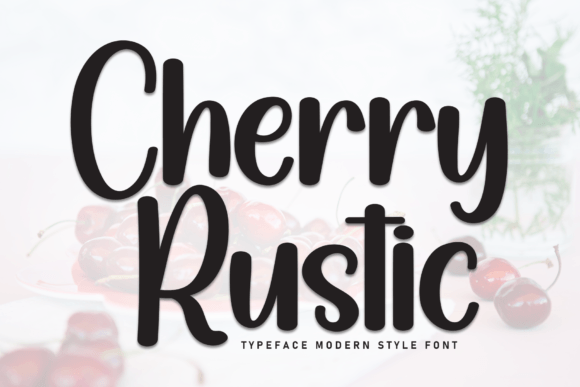
Discover the Delightful Charm of Cherry Rustic Font
I’ll never forget the time I was working on a wedding invitation project, and my client asked for a font that was “whimsical, yet elegant.” I scoured the internet, tried out countless fonts, but nothing seemed quite right. That was until I stumbled upon Cherry Rustic Font. Its sweet and friendly allure instantly won me over, and I knew I had found the perfect fit. In this article, I’ll share my experience with this beautiful handwritten font, its features, and how to make the most of it in your design projects.
A Personal Review of Cherry Rustic Font
- ✨ The playful and enjoyable personality of Cherry Rustic Font makes it perfect for wedding invitations, cards, and other design projects that need a touch of whimsy.
- ✅ The font’s handwritten charm is sure to capture the attention of your audience and leave a lasting impression.
- 💕 The font’s sweet and friendly allure makes it ideal for projects that require a warm and inviting tone.
While Cherry Rustic Font is a beautiful font, there are a few quirks to be aware of:
- 🤔 The font may not be suitable for body text due to its handwritten nature and potential lack of readability at smaller sizes.
- ⚠️ Some characters may have slightly inconsistent spacing, which can affect the overall flow of your text.
The Designer Inspiration Behind Cherry Rustic Font
Cherry Rustic Font was inspired by the charming and rustic landscapes of the countryside. Its creator, a talented font designer, wanted to capture the essence of a warm and inviting summer day. The result is a font that exudes a sense of friendliness and approachability, making it perfect for designs that require a personal touch.
| What is Cherry Rustic Font best used for? | Cherry Rustic Font is best used for designs that require a touch of whimsy and a playful personality, such as wedding invitations, cards, and other creative projects. |
| Is Cherry Rustic Font suitable for body text? | No, Cherry Rustic Font may not be suitable for body text due to its handwritten nature and potential lack of readability at smaller sizes. |